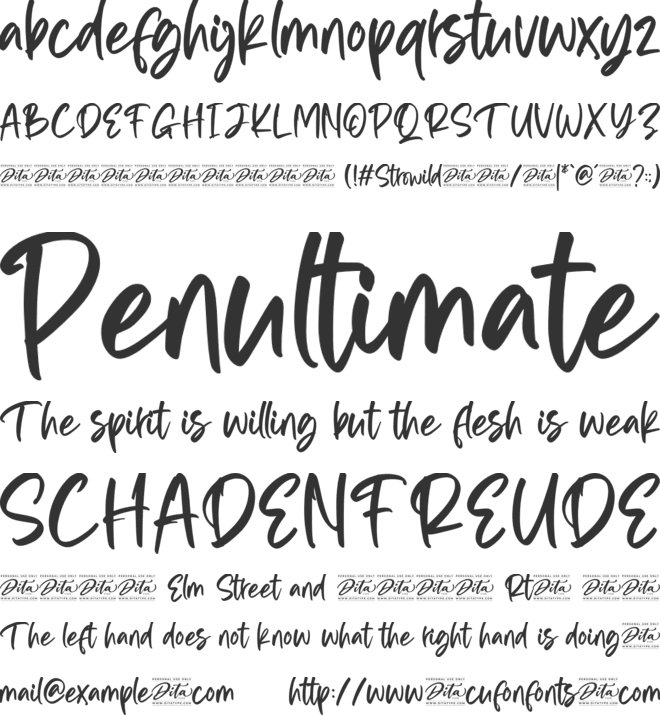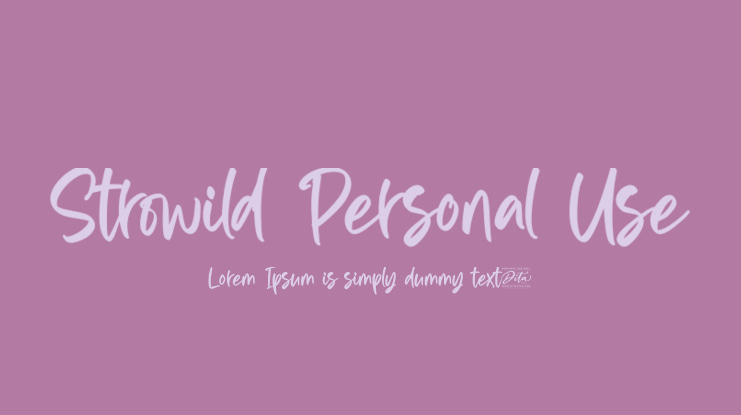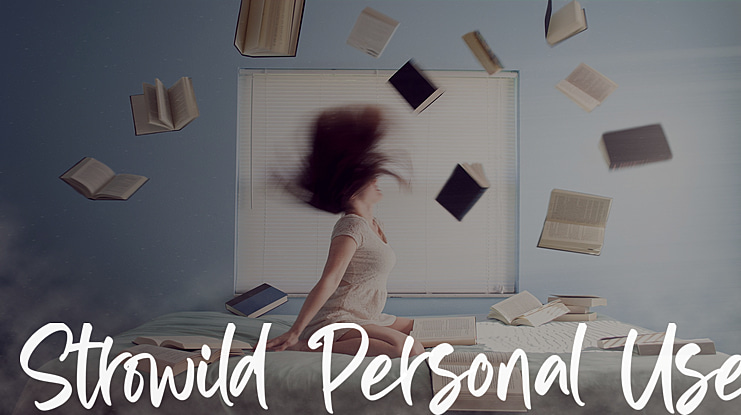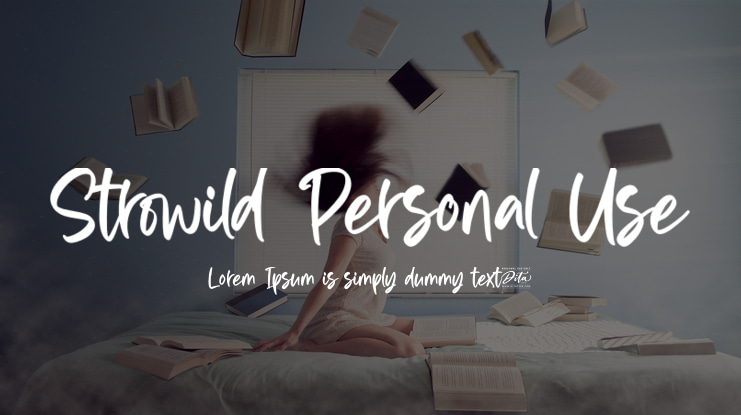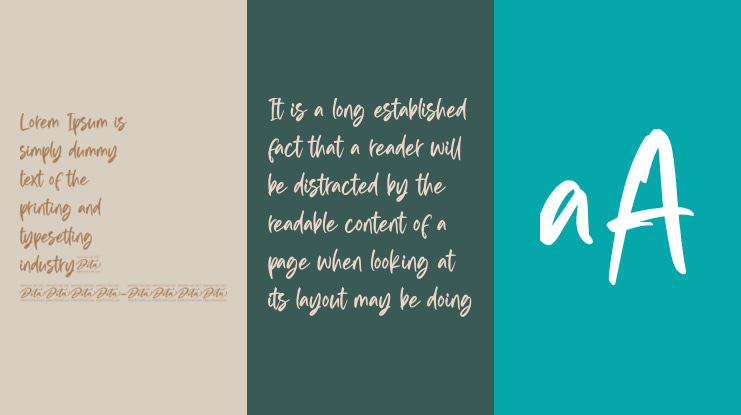
Strowild is a modern handwritten font. Made for any professional project branding that need a modern and attractive typeface. It is the best for logos, branding and quotes. Every letter has a unique and beautiful touch.